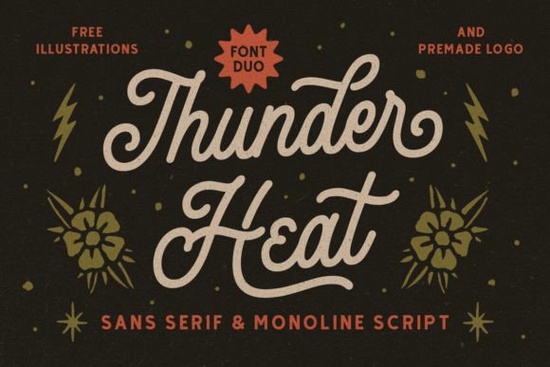
If you’ve been looking for a clean, flexible font that works just as well on logos as it does on greeting cards or product packaging, the Thunder Heat Duo Font might be exactly what your toolkit needs. It’s not flashy or overly trendy instead, it offers a timeless monoline style with two distinct personalities: one sans serif, one script. That combo gives you room to mix and match depending on your project’s tone, whether you’re designing for a modern brand or something more personal and handwritten.
What makes this duo especially handy is how naturally the two styles complement each other. You can use the sans version for headlines or labels and switch to the script for accents or subheadings no clashing, no awkward spacing. It’s the kind of pairing that feels intentional without needing hours of tweaking.
Who should consider using Thunder Heat Duo?
If you run a small shop selling custom mugs, t-shirts, or stickers, fonts like this help you create cohesive branding without hiring a designer. Crafters who make digital planners, wall art, or party invitations will appreciate how readable and scalable both versions are even at smaller sizes. Print-on-demand sellers often need fonts that look good across different materials, and Thunder Heat holds up whether printed on cotton, vinyl, or cardstock.
How does it compare to other script-sans combos?
Not all font duos give you equal weight between their styles. Some lean too hard into the script, leaving the sans version feeling like an afterthought. Thunder Heat avoids that. Both fonts feel fully developed, with consistent stroke widths and matching x-heights. That means less manual kerning and fewer headaches when aligning text blocks.
Any tips for getting the most out of this font?
- Try mixing cases. The script version looks especially nice in lowercase for casual quotes or captions, while the sans shines in all caps for bold statements.
- Don’t overcrowd. Because both fonts are monoline (same stroke thickness throughout), they benefit from breathing room. Add extra line spacing or generous margins to let the letters stand out.
- Avoid tiny sizes. While legible down to about 10pt, the script’s finer connections can blur on low-res prints. Stick to 12pt or above for physical products.
- Use the sans for structure, script for soul. Pair them in headers, social media graphics, or layered SVG cut files to add contrast without chaos.
Quick checklist before you download:
- Do you need a font that transitions smoothly between formal and friendly tones?